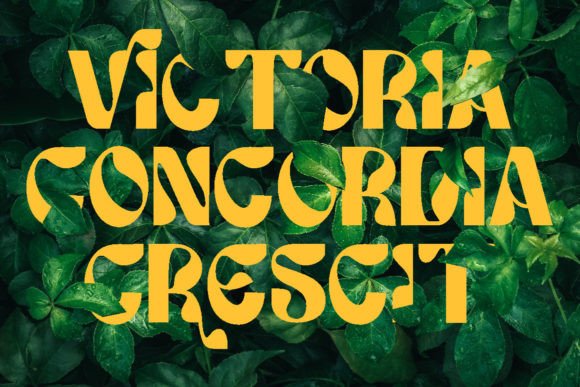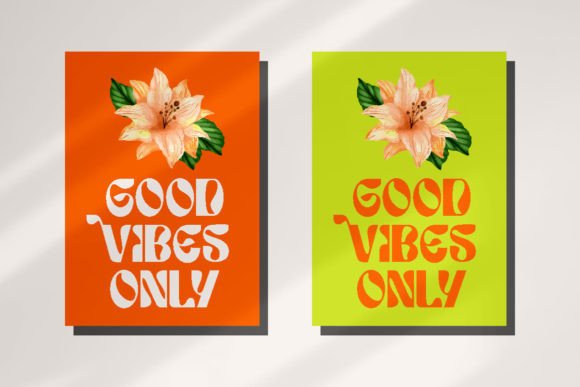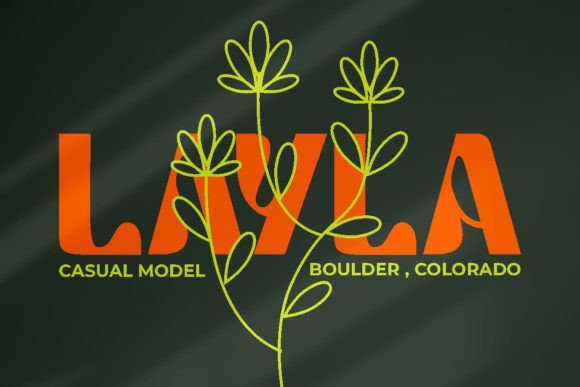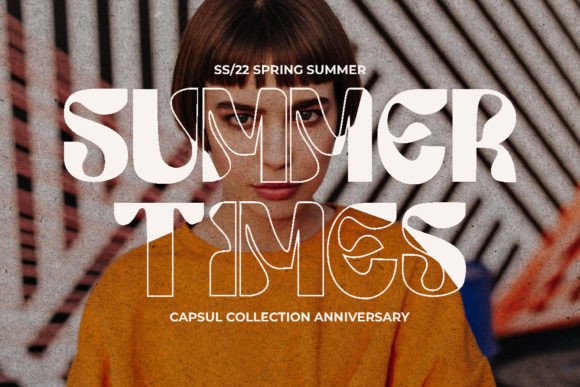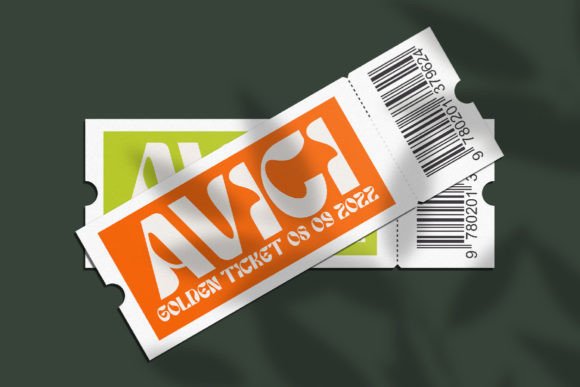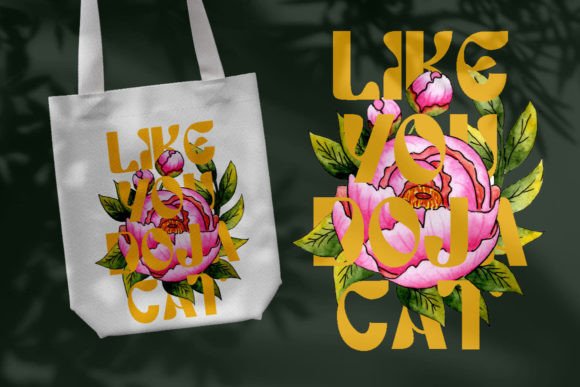
Introducing Floras Display Font: Add a Funky Twist to Your Designs
Are you tired of using the same old fonts in your designs? Do you want to add a unique touch that sets your work apart from the rest? Look no further than Floras Display Font, a funky display font that’s sure to bring good vibes to your designs. With its abundance of grooves and PUA encoding, this typeface is a must-have for designers and crafters looking to take their work to the next level.
The Funky Charm of Floras Display Font
Floras Display Font is a one-of-a-kind typeface that’s designed to add a playful and energetic feel to your designs. Its unique grooves and curves give it a funky charm that’s sure to grab attention. Whether you’re working on a logo, poster, or social media graphic, this font is sure to make your design stand out from the crowd.
PUA Encoding: Easy Access to Glyphs and Ligatures
One of the best things about Floras Display Font is that it’s PUA (Private Use Area) encoded. This means that you can access all the glyphs and ligatures with ease, giving you even more creative freedom to experiment with different styles and effects. With PUA encoding, you can easily insert special characters and swashes into your text, making it even more visually appealing.
Floras Display Font is a versatile typeface that’s perfect for a wide range of design projects. Whether you’re a professional designer or a crafter working on a DIY project, this font is sure to inspire your creativity. Use it to create eye-catching headlines, add a personal touch to your crafts, or simply to add some visual interest to your social media graphics.
What You Can Create with Floras Display Font
The possibilities are endless with Floras Display Font. Here are just a few ideas to get you started:
• Create a bold and eye-catching logo for your business or brand
• Design a colorful and playful poster for a concert or event
• Add a personal touch to your handmade crafts, such as cards, gift tags, or iron-on designs
• Make your social media graphics stand out with a funky and unique font
• Use it as a display font for your website or blog
Why Choose Floras Display Font?
So why choose Floras Display Font over other fonts on the market? Here are just a few reasons:
• Unique and eye-catching design that’s sure to grab attention
• PUA encoding for easy access to glyphs and ligatures
• Versatile and suitable for a wide range of design projects
Get Ready to Bring Good Vibes to Your Designs
In conclusion, Floras Display Font is a must-have for designers and crafters looking to add a unique touch to their work. With its funky design, PUA encoding, and versatility, this font is sure to bring good vibes to your designs and set your work apart from the rest. So don’t miss out on this amazing opportunity to elevate your typography and take your designs to the next level.